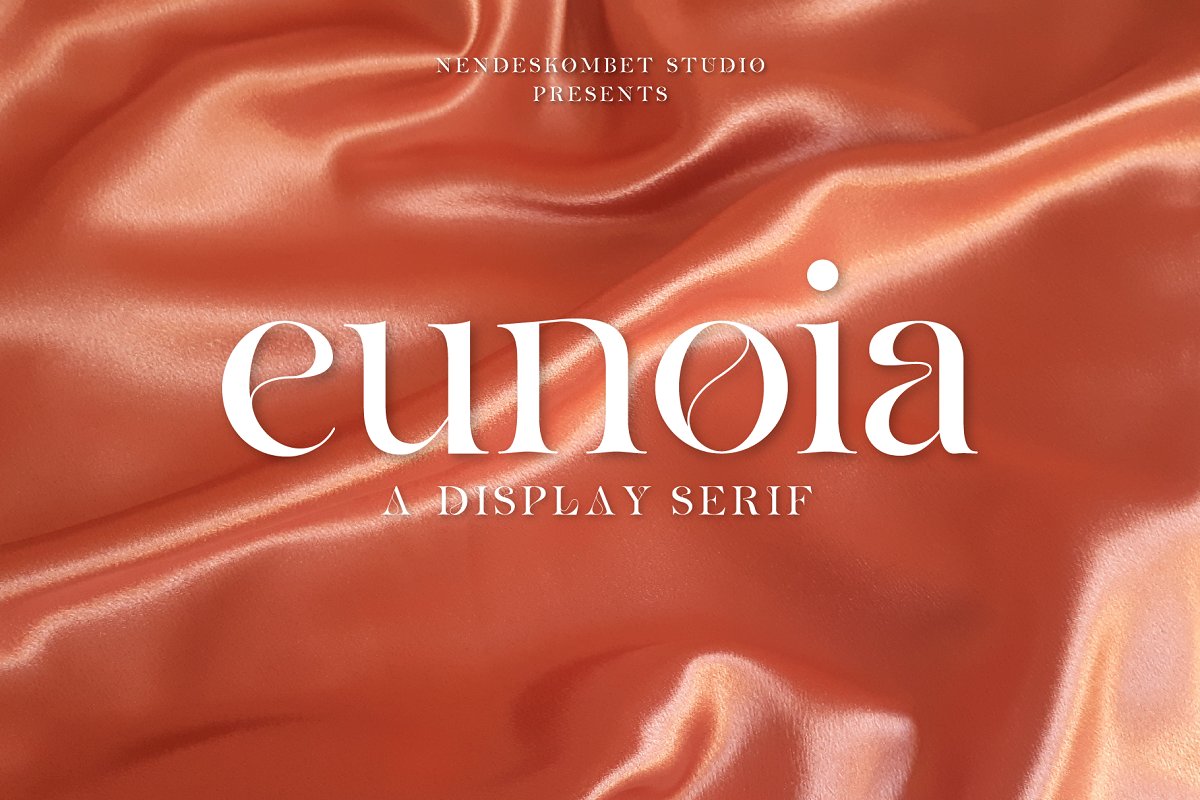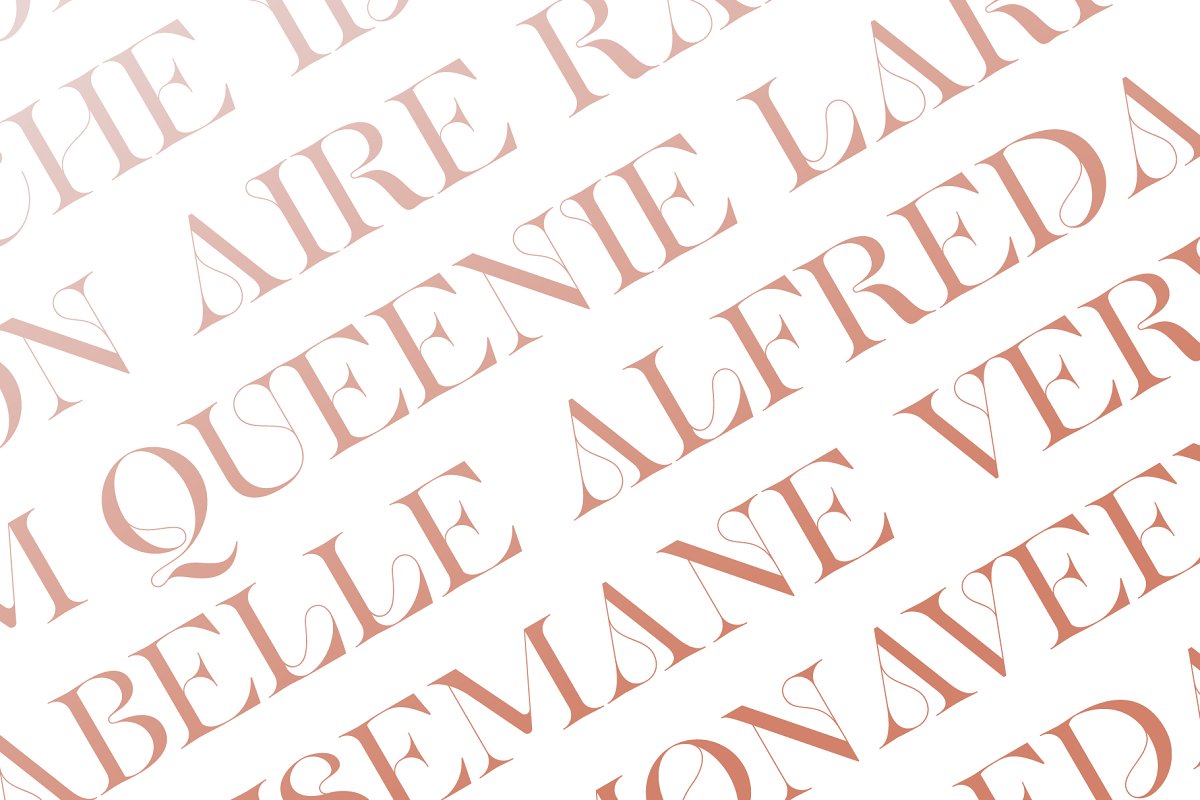
About the eunoia a display serif Font
eunoia is a playful yet elegant serif, the subtle curves of each letter make it very unique, Gallery comes with a full uppercase, lowercase, numbers and punctuation + Multilanguage support, Perfect for anything your creativity takes you, What will you get?Quaker, ttfQuaker, otfQuaker, woffcustomer support, please contact: alicewhales23@gmail, comEnjoy!